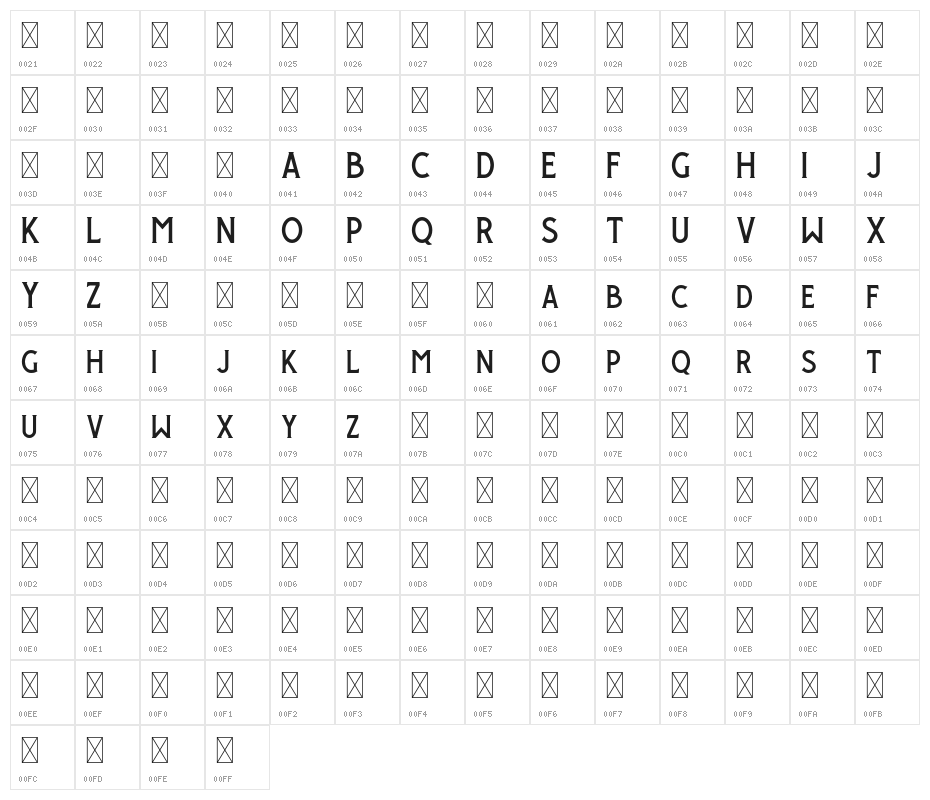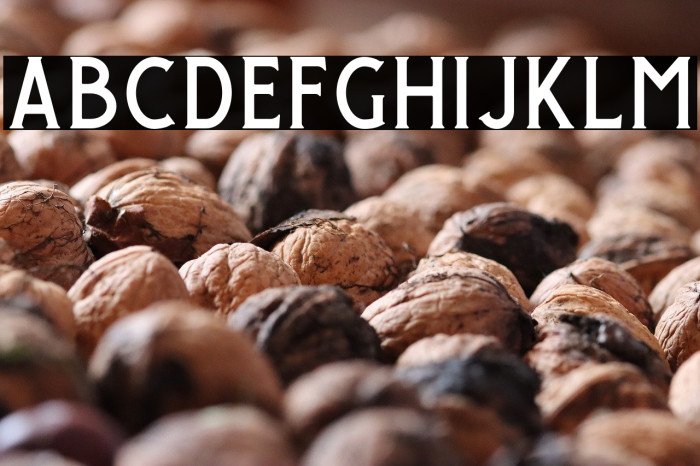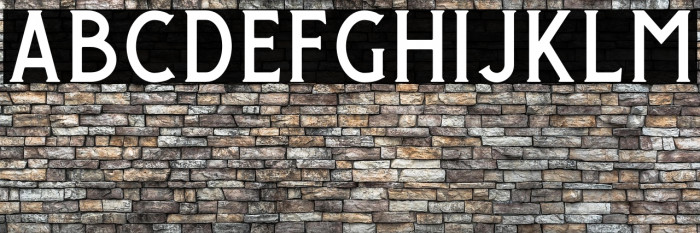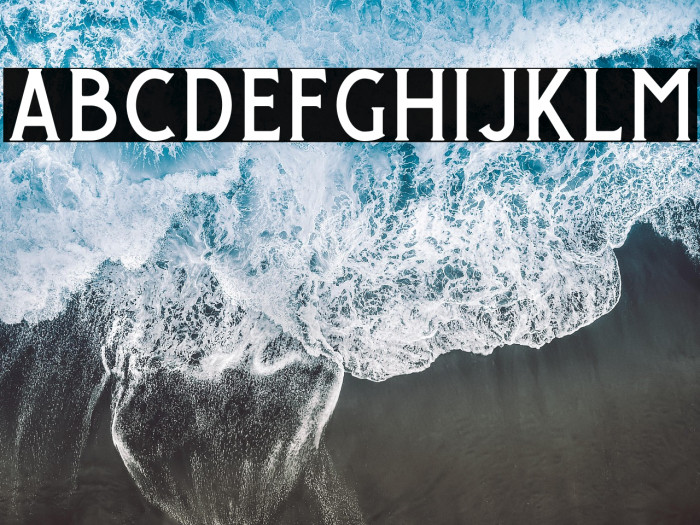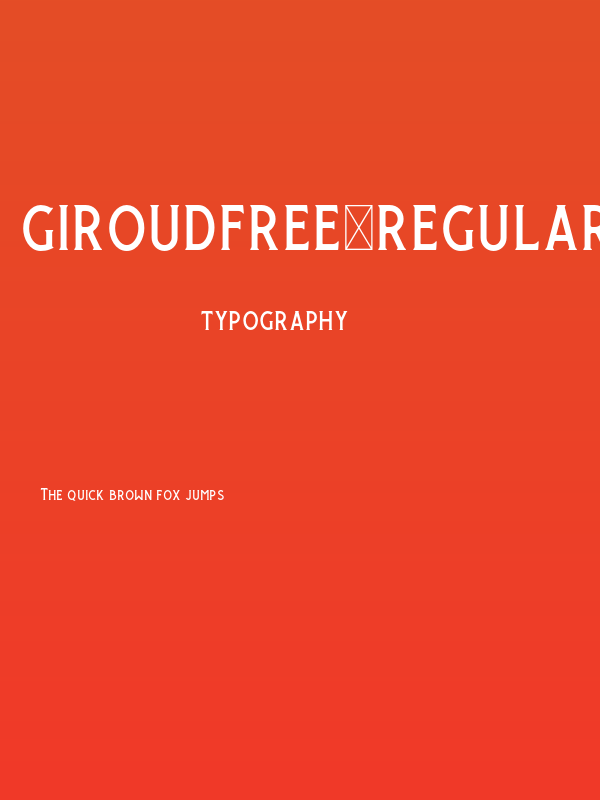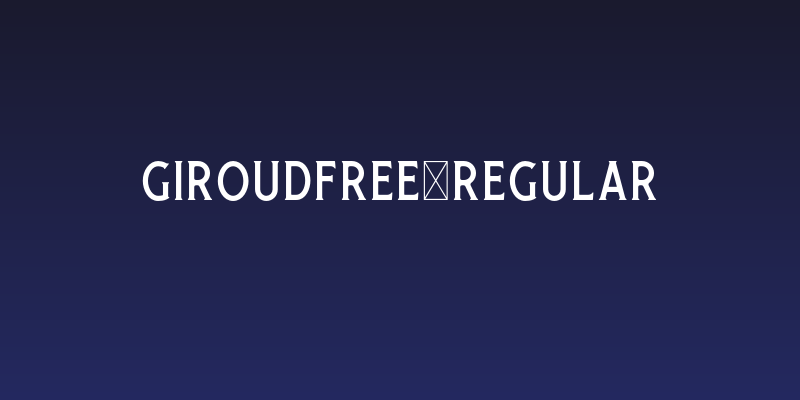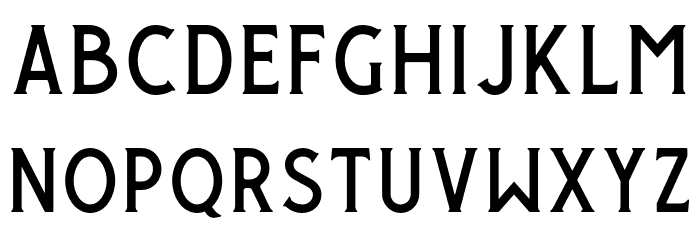
GiroudFree-Regular Font
GiroudFree-Regular Description
This font features a clean and modern design with a distinct geometric influence. The uppercase letters are bold and well-defined, showcasing a balance between straight lines and subtle curves. The characters are evenly spaced, providing a harmonious and readable appearance. The font's style is versatile, making it suitable for various design projects. Its simplicity and clarity make it ideal for both digital and print media. The absence of lowercase letters and special characters in the image suggests a focus on impactful headlines and titles.
| Proposed Projects | Ideal for branding, advertising, and editorial design projects where a modern and clean look is desired. |